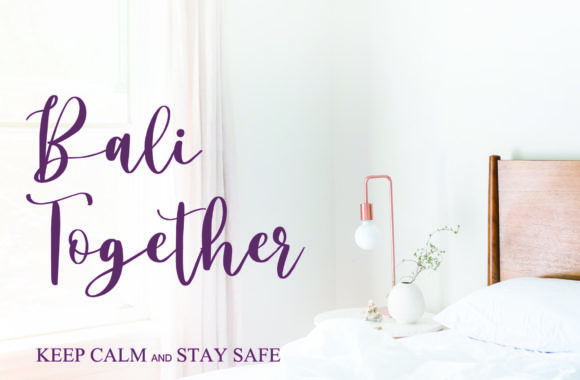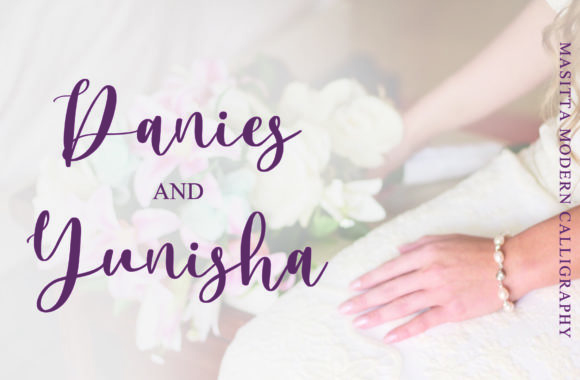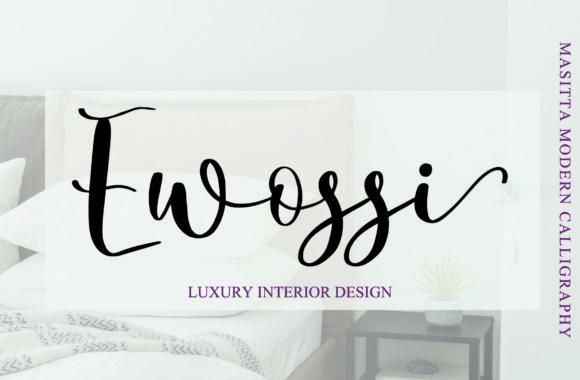
Introduction to Masitta Font
Masitta is an elegant script font with a contemporary atmosphere and impeccable form, inspired by timeless classic calligraphy.
Not too thin and not too thick, balanced and varied, this font was designed to enhance the beauty of your projects .